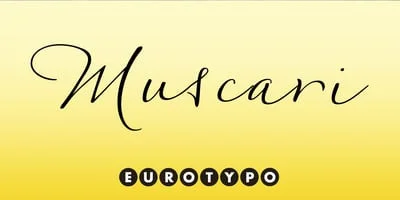
Muscari Font
Muscari Font is perfect for botanical design projects including garden center branding, floral shop signage, nature magazine layouts, botanical illustration books, organic skincare packaging, wellness center materials, spring festival posters, and environmental organization campaigns. This delicate typeface excels in perfume labels, herbal tea packaging, spa resort branding, botanical research publications, and projects celebrating natural beauty and seasonal freshness.
What makes Muscari Font exciting is its graceful botanical character that perfectly captures the essence of natural elegance and springtime renewal. The font features flowing letterforms with organic curves that mirror the gentle movement of flower petals and growing vines. Its delicate design elements reflect the intricate beauty found in nature's smallest details, making it ideal for projects that need to convey freshness, growth, and natural harmony. The carefully balanced proportions create a sense of blooming vitality and peaceful serenity.
Muscari Font comes in multiple family variations including light, regular, medium, and bold weights. Each style maintains the distinctive botanical character while offering different levels of visual delicacy and natural emphasis. The font family includes floral alternates, organic ligatures, and nature-inspired decorative elements that allow designers to create truly enchanting and seasonally appropriate typographic compositions.